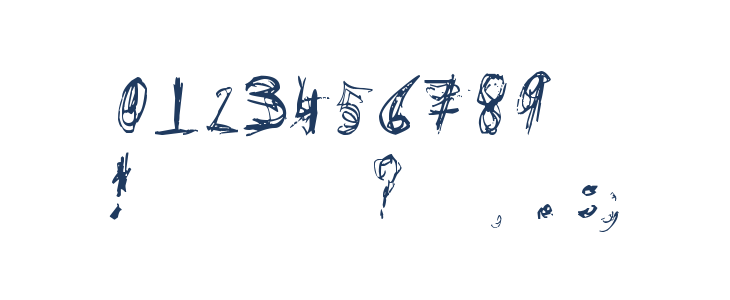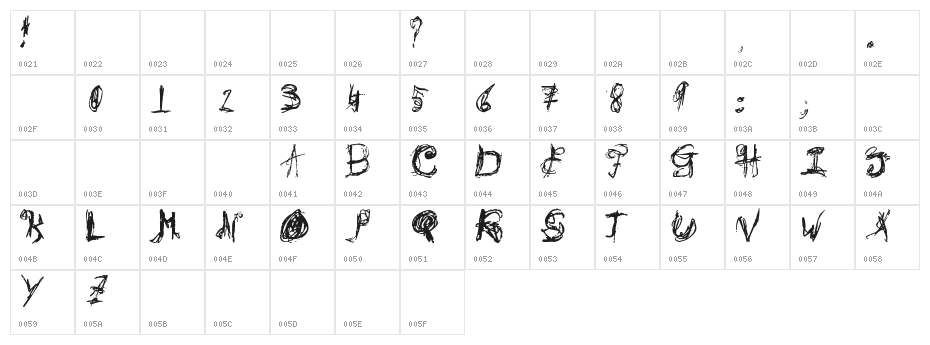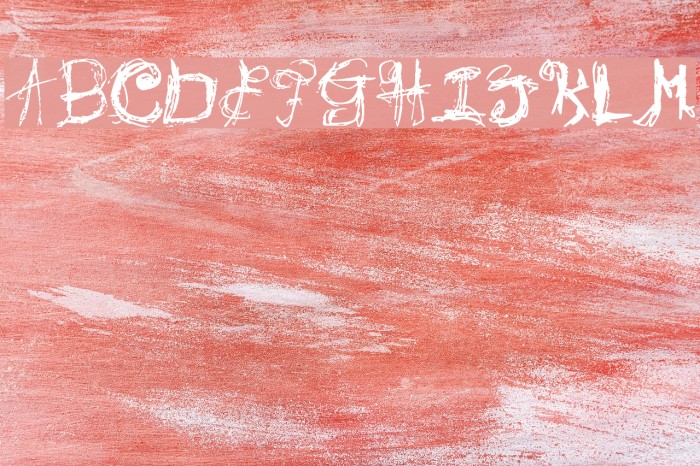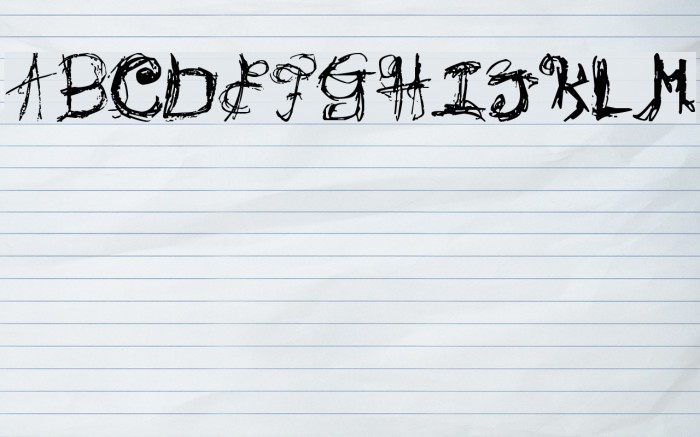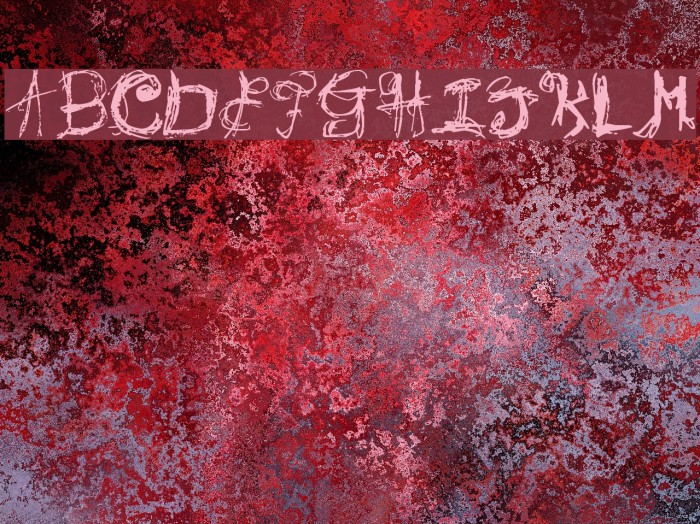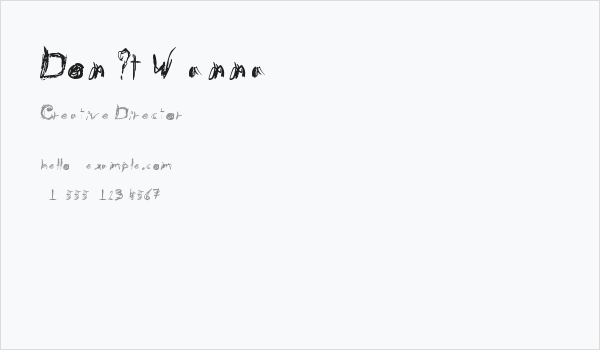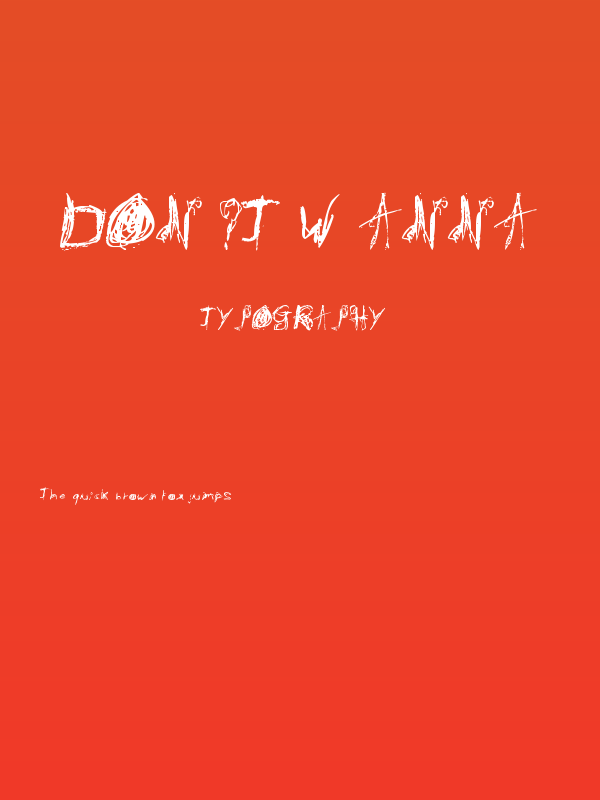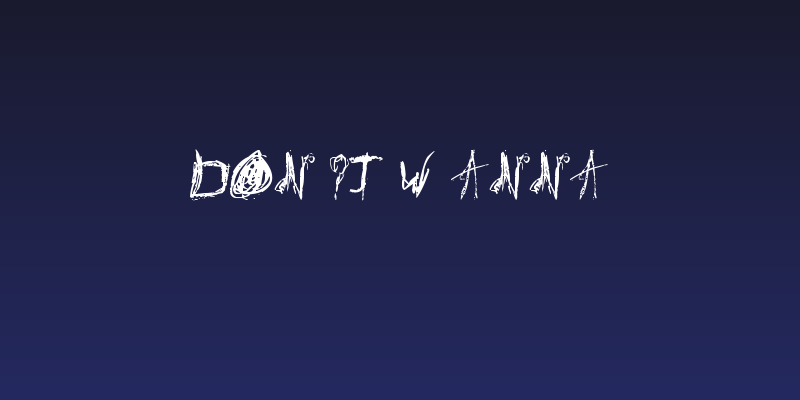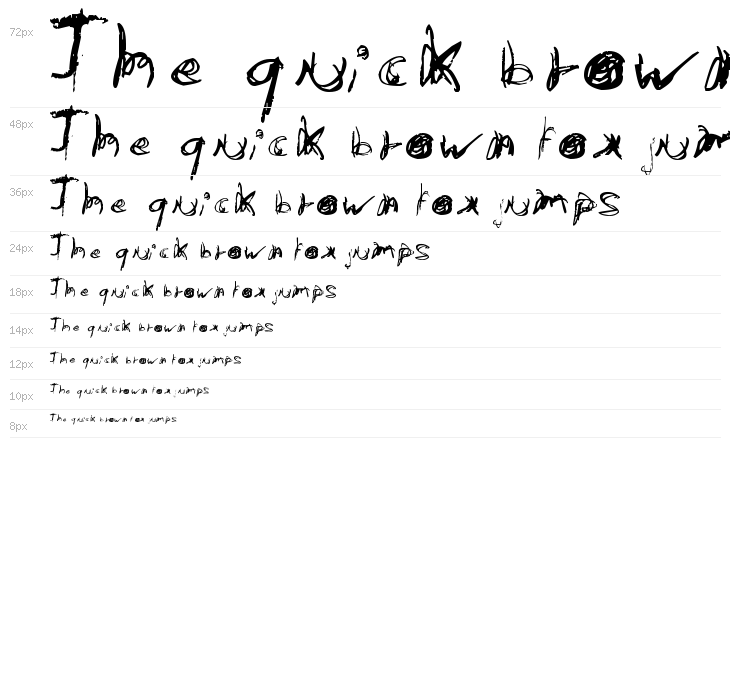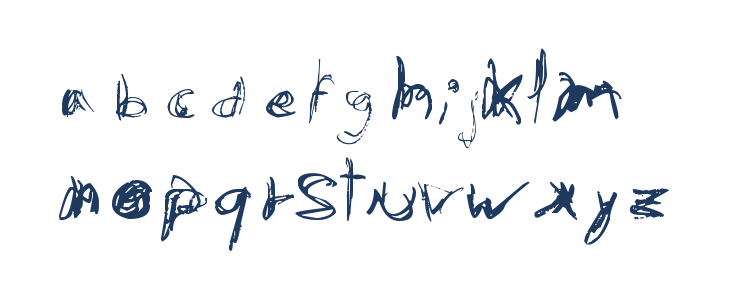
Don't Wanna Font
This font exhibits a chaotic and distressed style, characterized by its erratic strokes and uneven letterforms. The characters appear as if they were hastily scribbled, with a raw and expressive quality. The uppercase and lowercase letters maintain a consistent level of disarray, while the numbers and special characters follow suit with their own unique flair. The overall appearance is bold and impactful, making it suitable for projects that require a strong visual statement. Its unconventional design lends itself well to creative and artistic applications, where a sense of rebellion or nonconformity is desired.
| Proposed Projects | Ideal for album covers, graffiti art, rebellious branding, and edgy posters. |